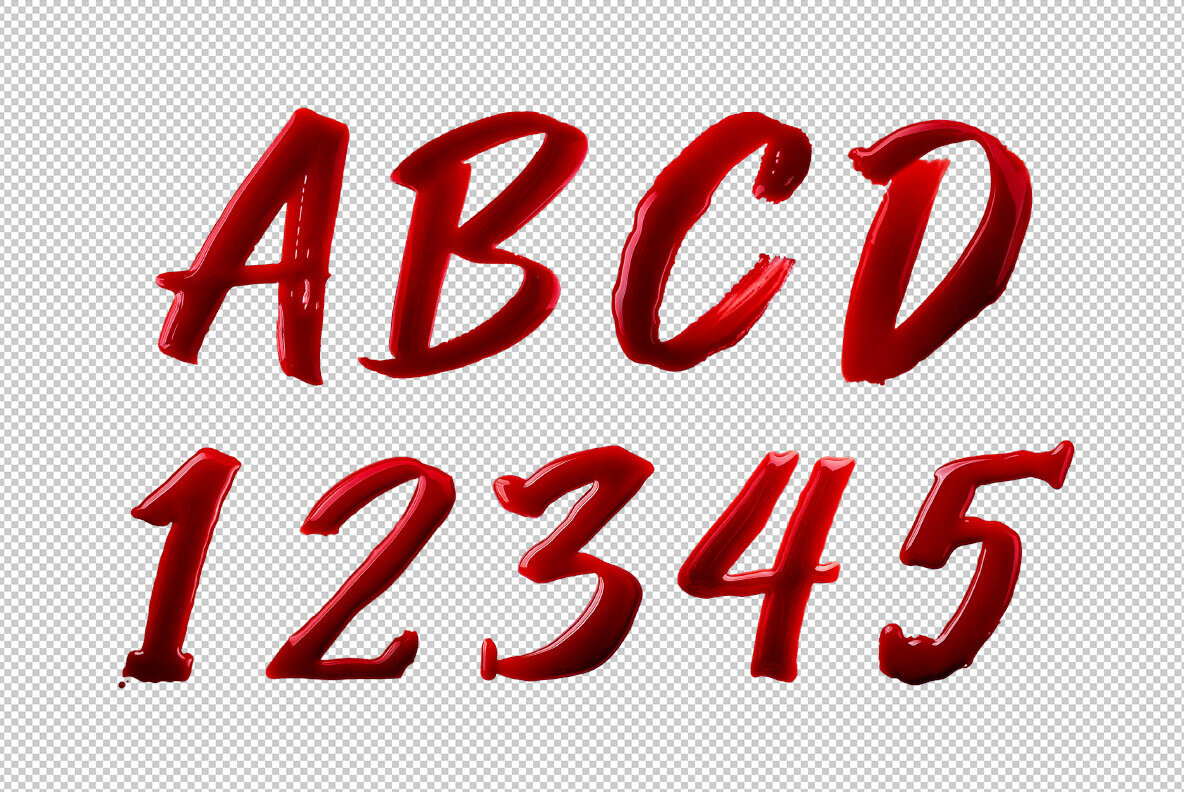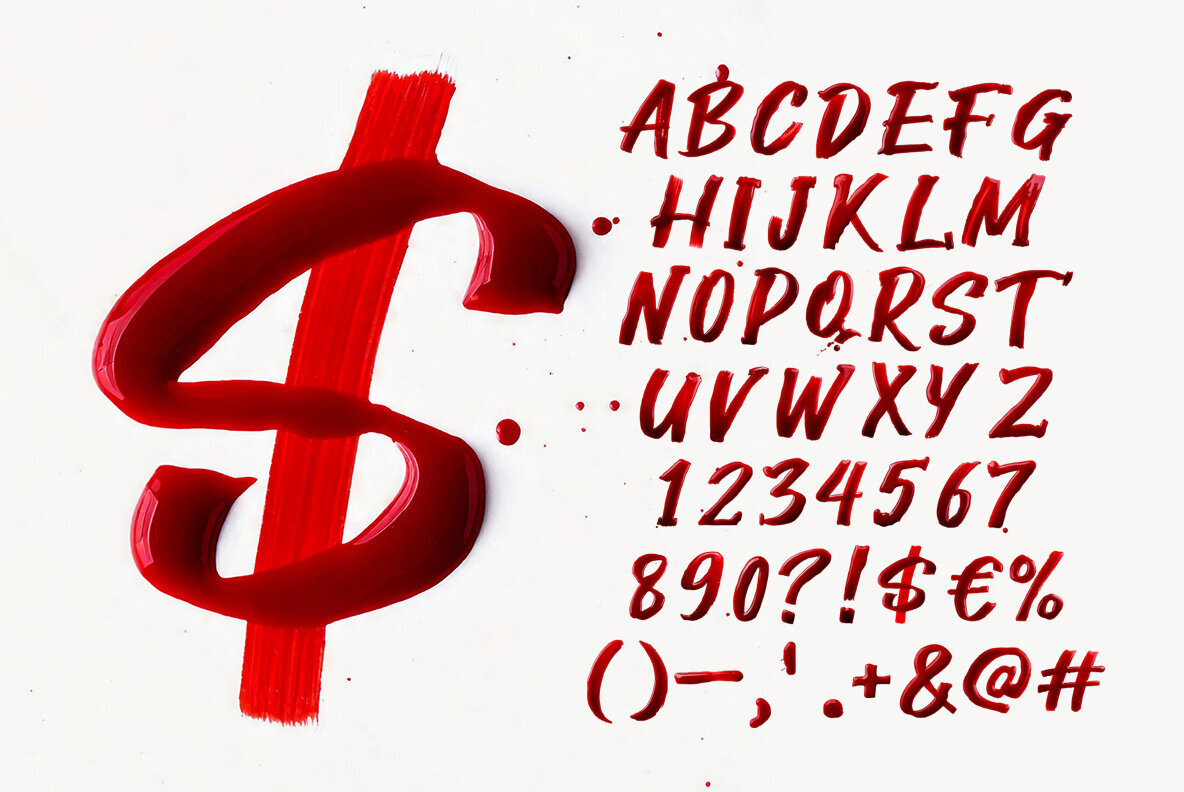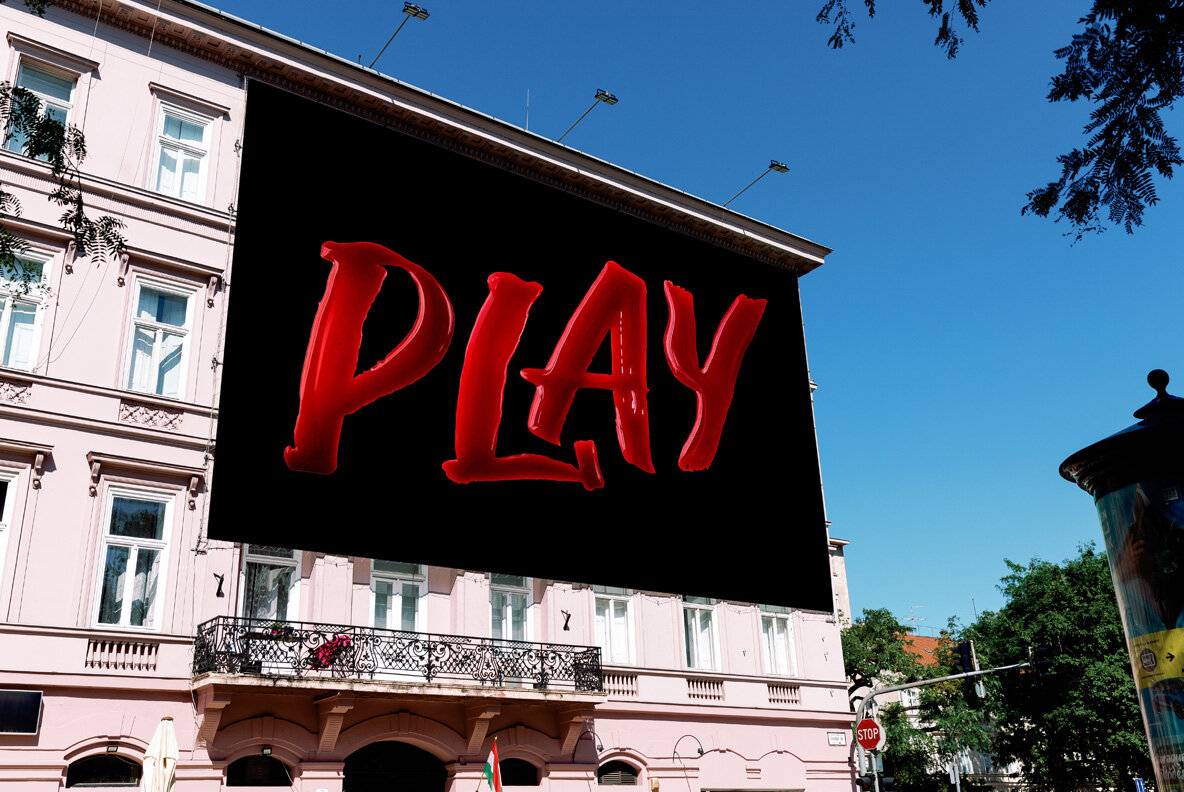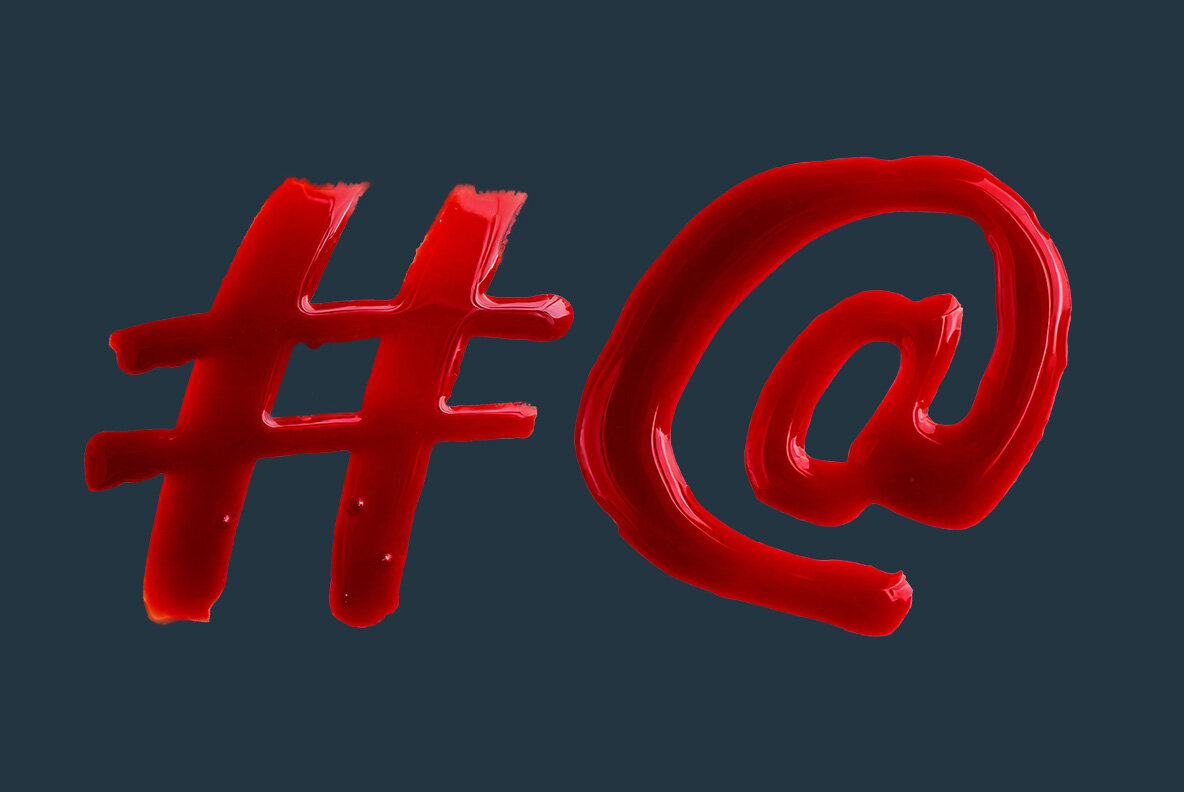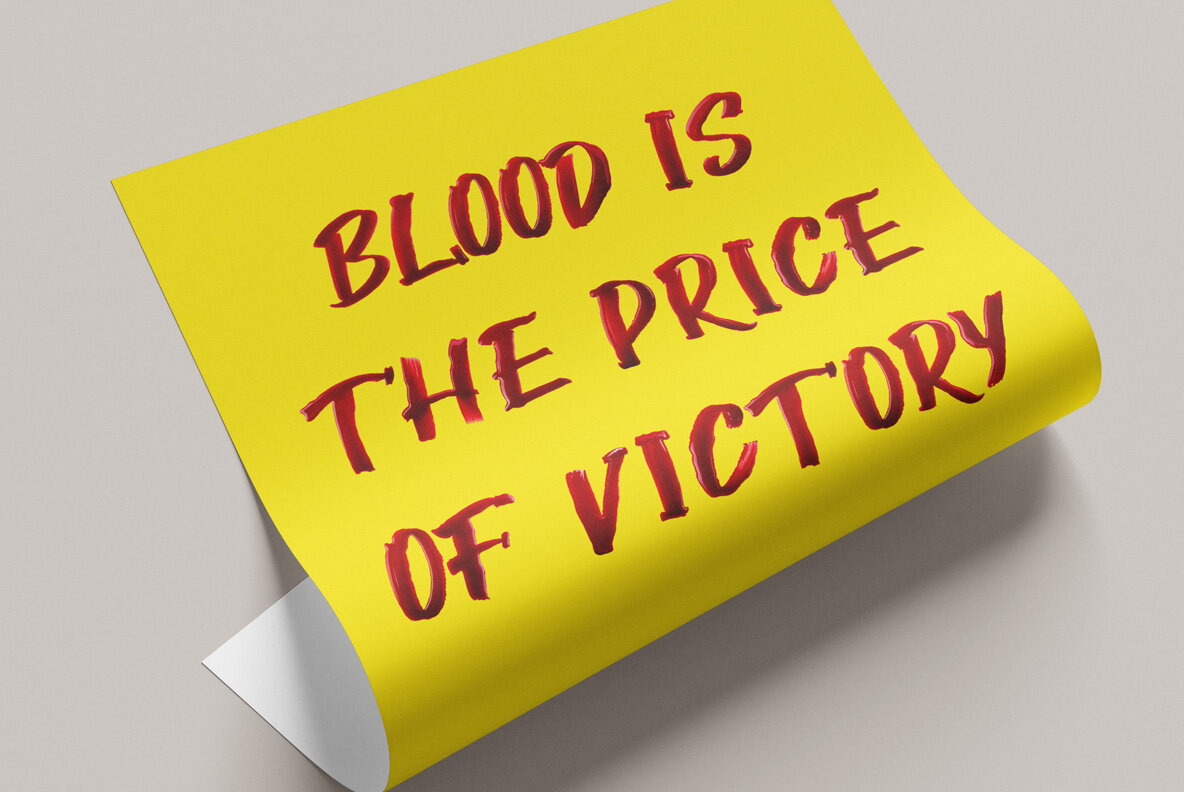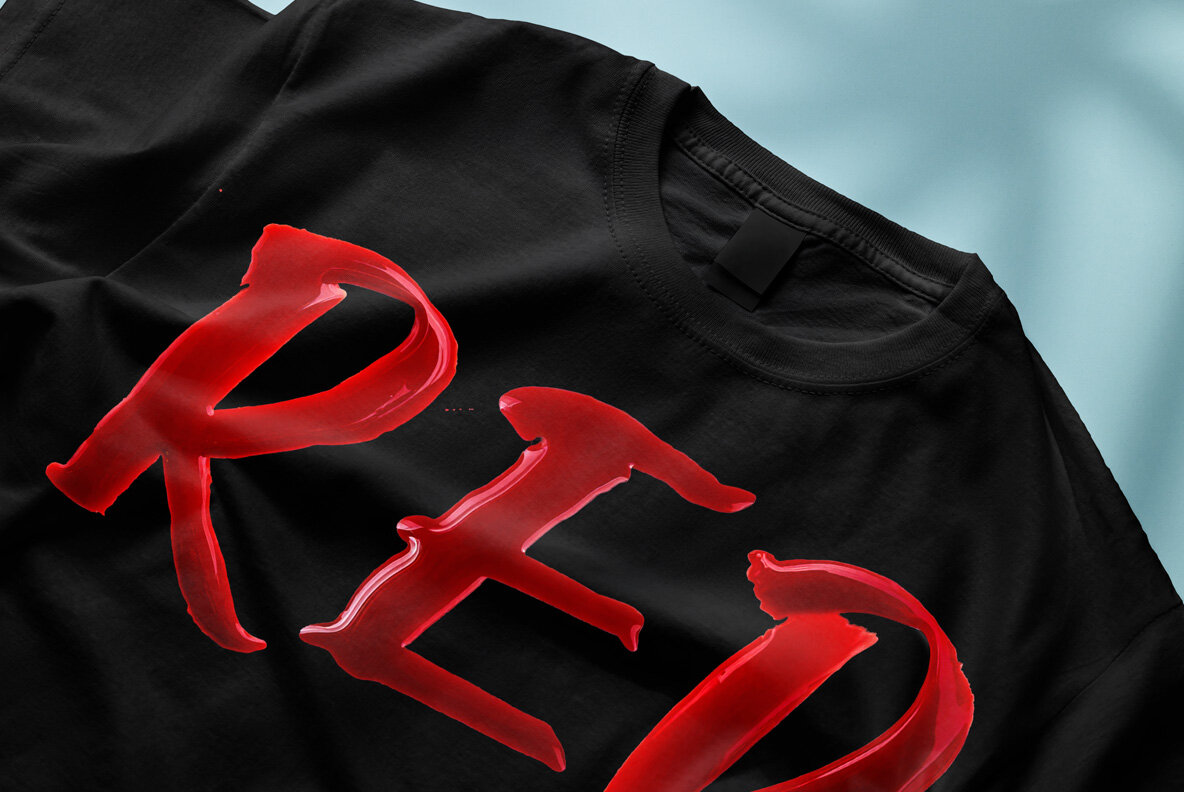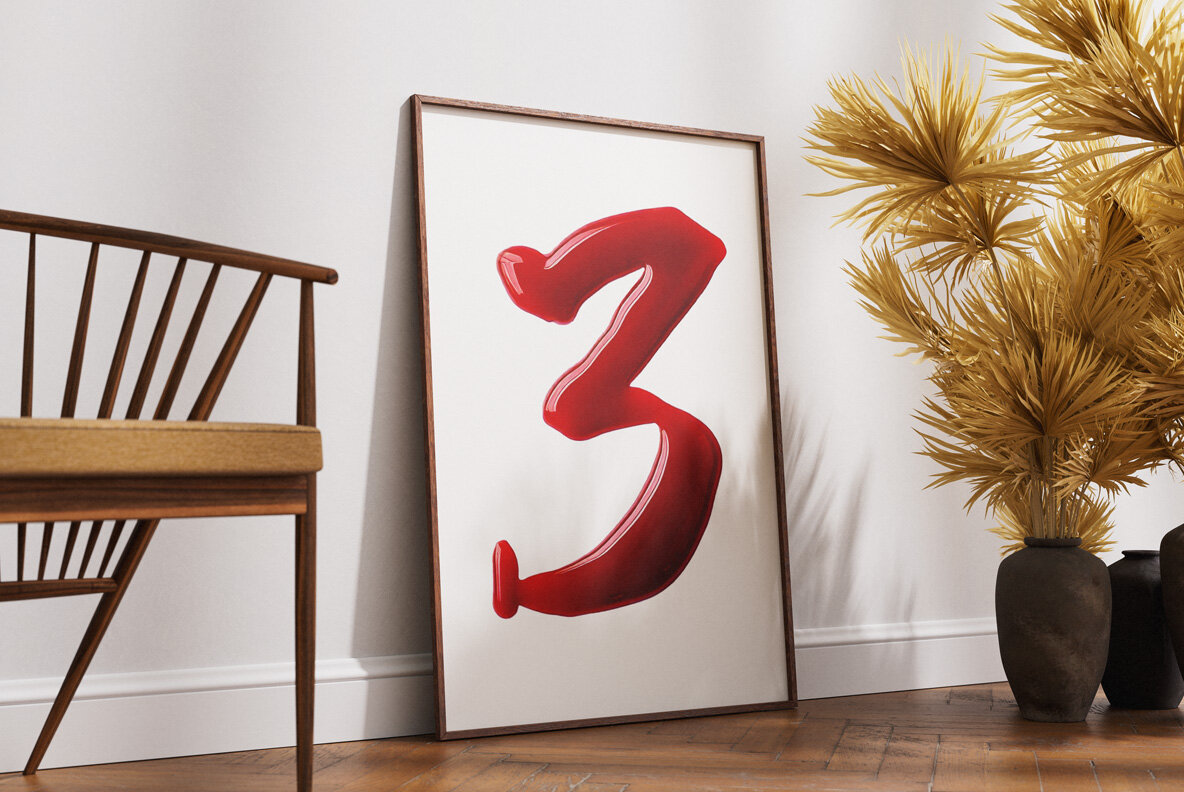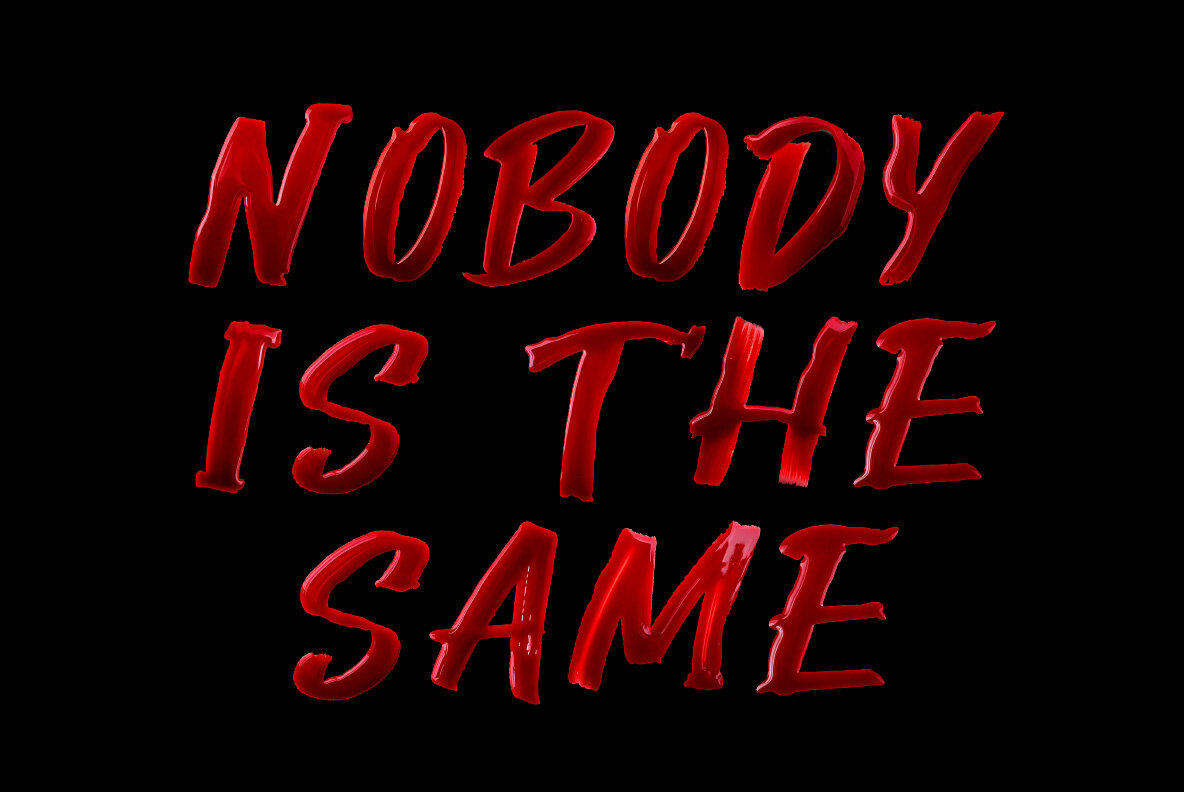
This striking font offers a unique design, bringing the appearance of realistic blood splatters to your creative projects. It is available as a color OpenType font, showcasing its vivid and dynamic style in programs that support color bitmap fonts like Photoshop, Illustrator, and InDesign. The font comprises uppercase characters, numerals, and basic punctuation, making it versatile for various design needs. Each character is crafted with meticulous attention to detail, resulting in a striking visual effect suitable for posters, digital artwork, or graphic design elements that require a bold, dramatic touch.